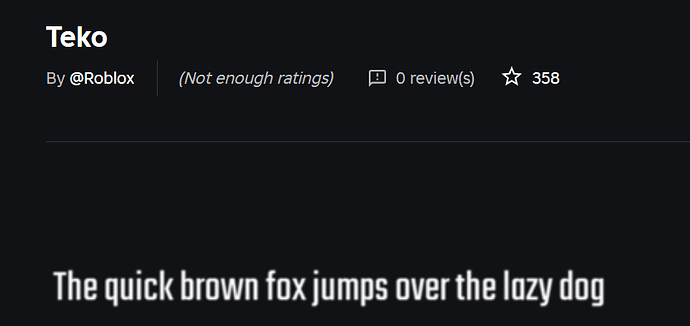
I played ROLVe’s upcoming Arsenal 2 game and I liked the font they used for the game. They also used in their new game called Enforcement.
Does anyone know what font this is?
I tried to use that, but I want to know whats the font called on Roblox, so that way I can use it for future projects.
Roblox fonts are real fonts and havr the same name, if you can’t find it in the font list it might be in the toolbox in the font category
I think it is this font
My bad, just realized thats not the font, its too squished looking to even be it.